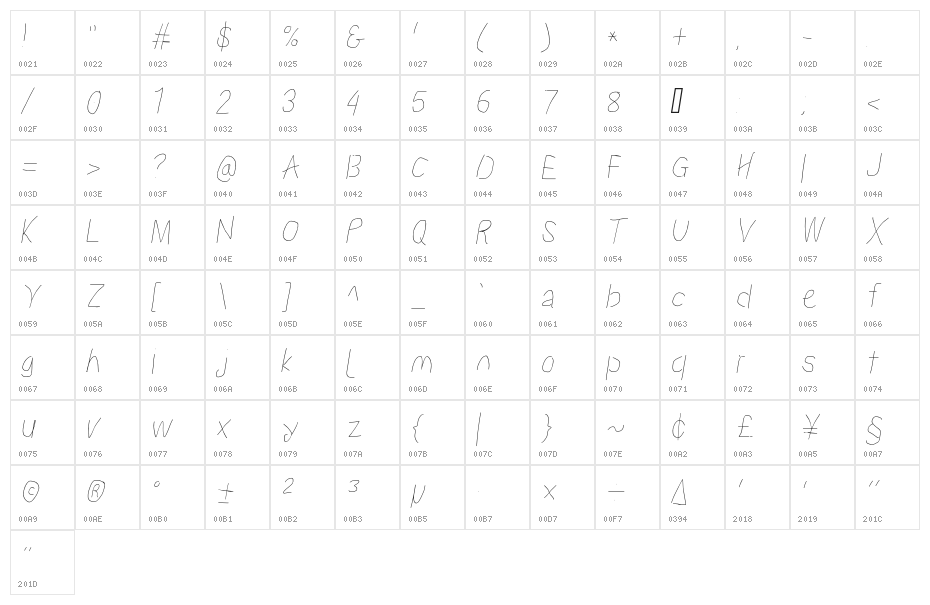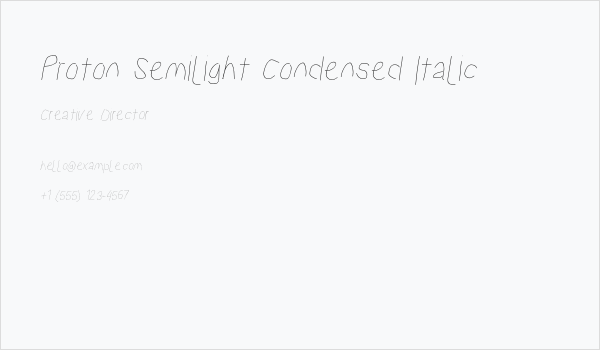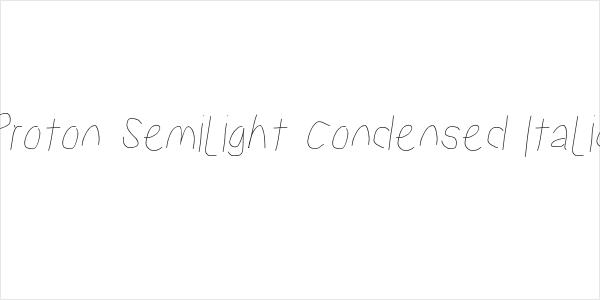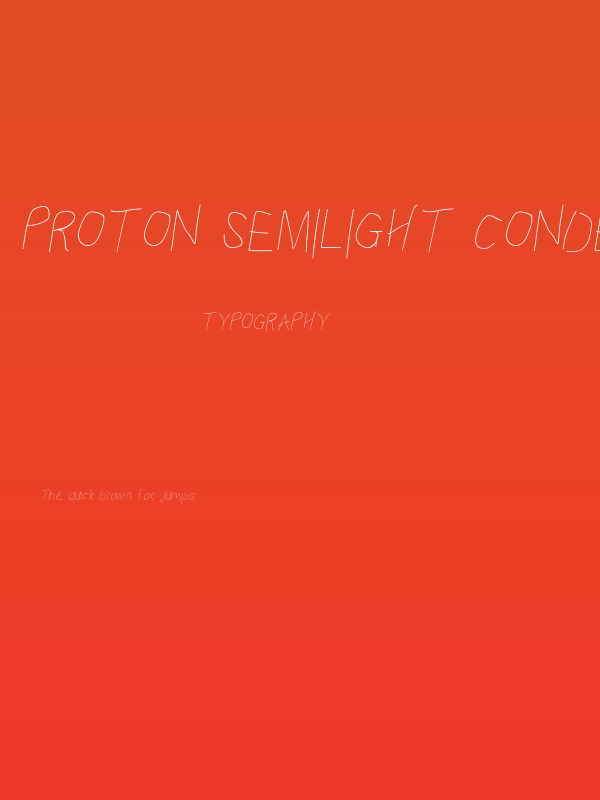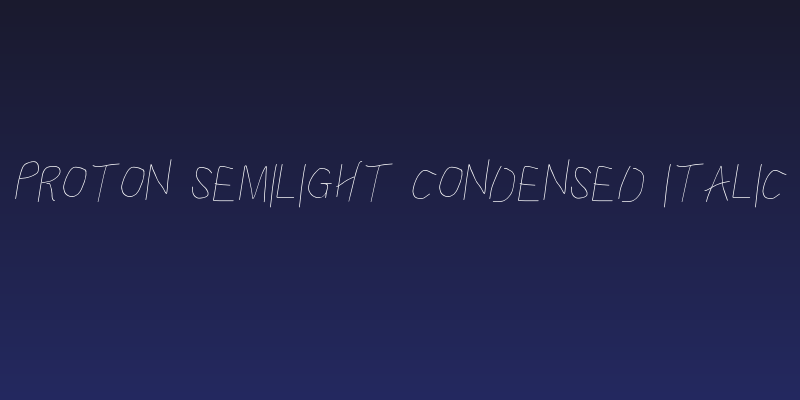
Proton Semilight Condensed Italic Font
Proton Semilight Condensed Italic Description
This font features a sleek, modern design with a semi-light weight that gives it an airy and elegant appearance. The condensed form allows for efficient use of space, making it ideal for projects where space is limited. Its italic style adds a dynamic and fluid touch, enhancing its contemporary feel. The characters are slightly elongated, contributing to a sophisticated and stylish look. The font maintains a consistent stroke width, providing a clean and uniform appearance. Its minimalistic design makes it versatile for various applications, from digital to print media.